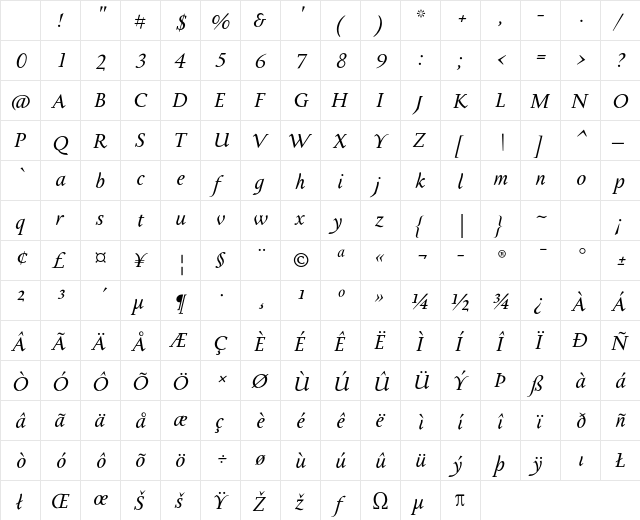
Tactile ITC Std is a composed and adaptable typeface that performs quietly and consistently across a wide range of design contexts. The slanted form adds forward momentum and visual energy.
Pro Tip: Use Tactile ITC Std for emphasis, pull quotes, and subheadings where its slanted energy can add rhythm to the layout.